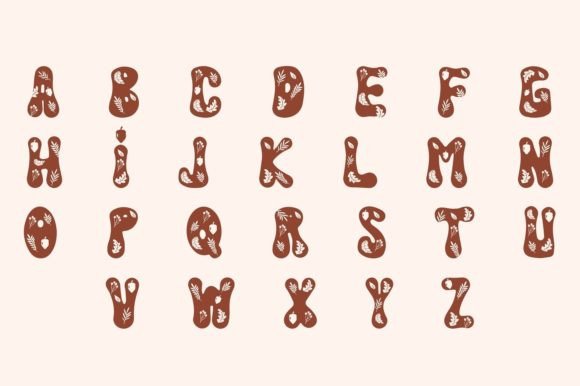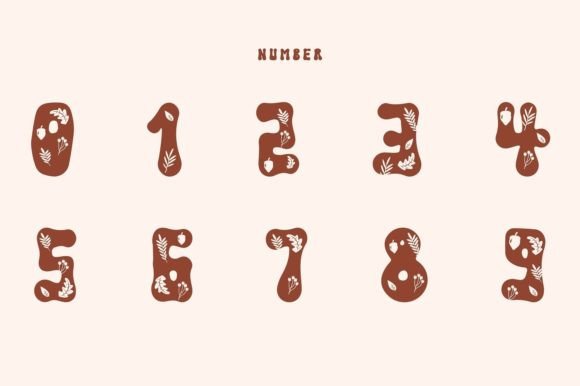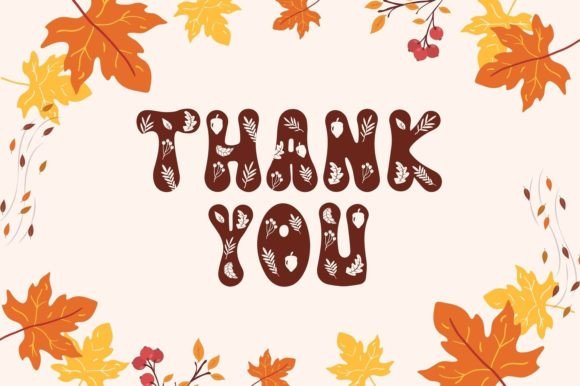
Introducing Fall Groovy Font: The Perfect Addition to Your Design Projects
Are you looking for a font that embodies playfulness and authenticity? Do you want to add a touch of retro fun to your design projects? Look no further than Fall Groovy Font! This decorative font is perfect for a wide range of projects, from blog posts and logos to branding, ads, invitations, greeting cards, planners, photo albums, decorations, and more.
What is Fall Groovy Font?
Fall Groovy Font is a unique and eye-catching decorative font that is sure to make your designs stand out. Its retro and fun style is reminiscent of the good old days, making it perfect for designers and crafters who want to add a touch of nostalgia to their work. Whether you’re creating a logo, branding materials, or social media graphics, Fall Groovy Font is the perfect choice.
Key Features of Fall Groovy Font
- Retro and Fun Style: Fall Groovy Font has a distinctive retro style that is sure to grab attention.
- Playful and Authentic: This font embodies playfulness and authenticity, making it perfect for designers who want to create unique and engaging designs.
- Versatile: Fall Groovy Font can be used for a wide range of projects, from blog posts and logos to branding, ads, invitations, greeting cards, planners, photo albums, decorations, and more.
Why Choose Fall Groovy Font?
There are many reasons why Fall Groovy Font is the perfect choice for your design projects. Here are just a few:
- Adds a Touch of Nostalgia: Fall Groovy Font has a distinctive retro style that is sure to evoke memories of the good old days.
- Stand Out from the Crowd: This font is unique and eye-catching, making it perfect for designers who want to create designs that stand out from the crowd.
- Perfect for Seasonal Designs: Fall Groovy Font is perfect for seasonal designs, especially for fall and autumn-themed projects.
- Great for Branding and Marketing: This font is perfect for branding and marketing materials, especially for businesses that want to create a fun and playful image.
Here are some tips and tricks for using Fall Groovy Font:
- Use it for Headings: Fall Groovy Font is perfect for headings and titles, especially for blog posts and articles.
- Mix and Match: Mix and match Fall Groovy Font with other fonts to create a unique and eye-catching design.